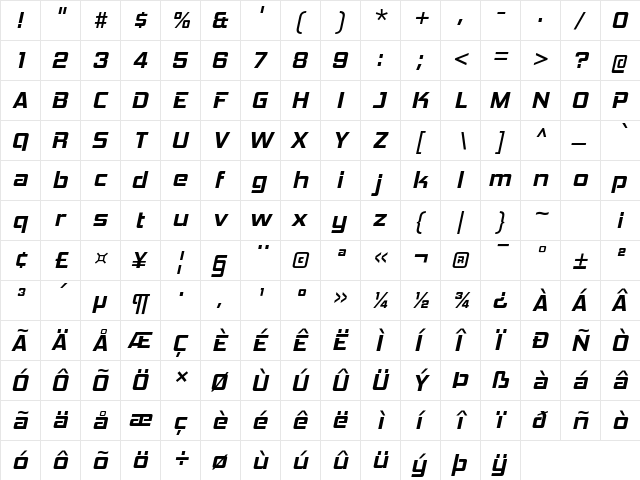
Hemi Head Bold Italic
Design Context for Hemi Head Typeface
Hemi Head takes a measured approach to typography — its balanced proportions and neutral character make it a reliable workhorse for both digital and print work. The slanted form adds forward momentum and visual energy. Its bold stroke weight gives it real presence on the page.
Pro Tip: Try Hemi Head for annotation and caption copy alongside an upright companion — the contrast in angle creates a dynamic but ordered typographic system.